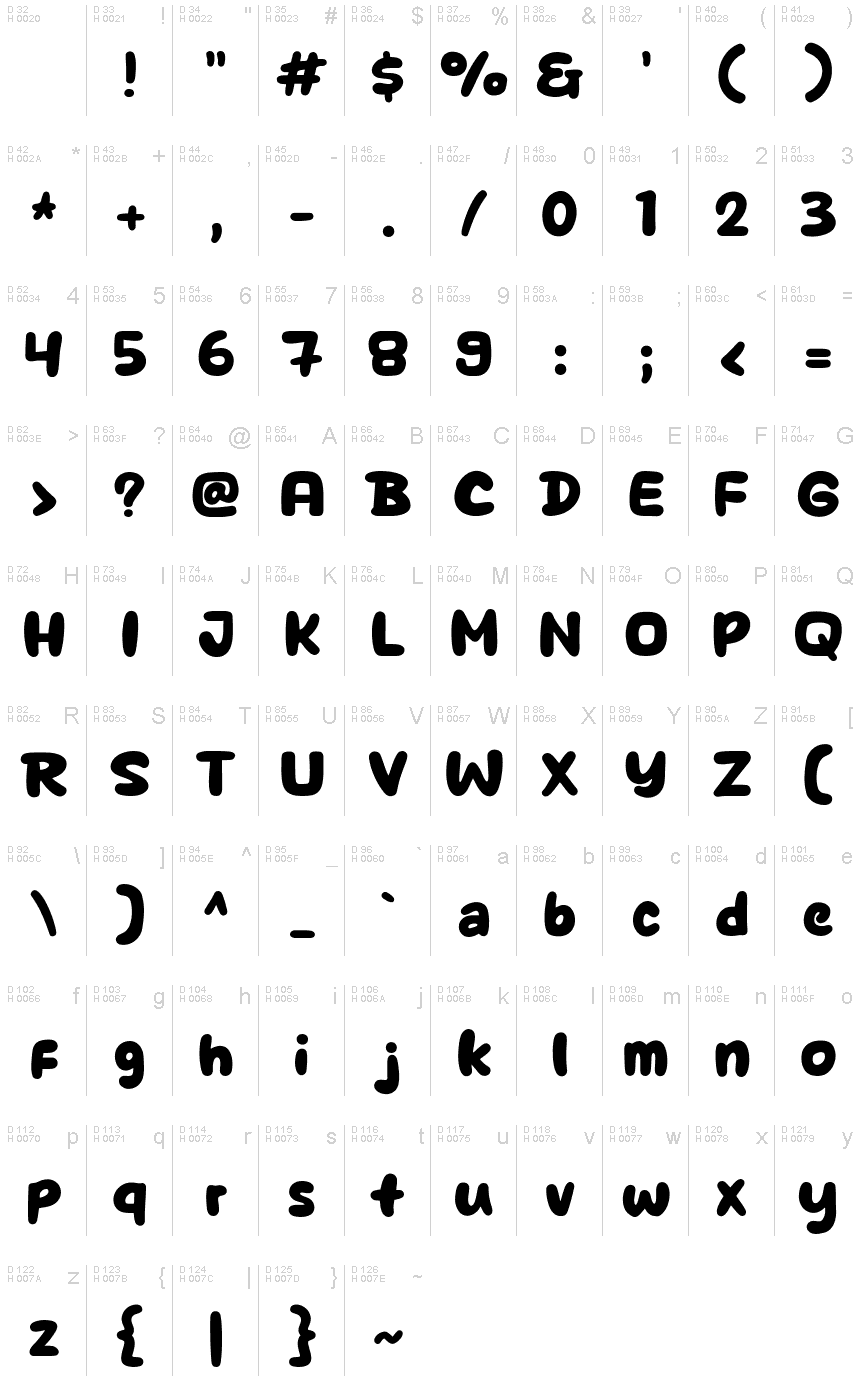
Strike Coffee
Strike Coffee, designed by Khurasan, is a vibrant and whimsical display font with an extra-bold weight. With its playful cartoon style, this font is perfect for projects aimed at children's books, toy packaging, or even animated movies. Its boldness adds emphasis and grabs attention, making it suitable for eye-catching headlines or logos. Whether you're designing a website for a coffee shop or creating adorable characters for a video game, Strike Coffee is the ideal choice to infuse your projects with creativity and charm.